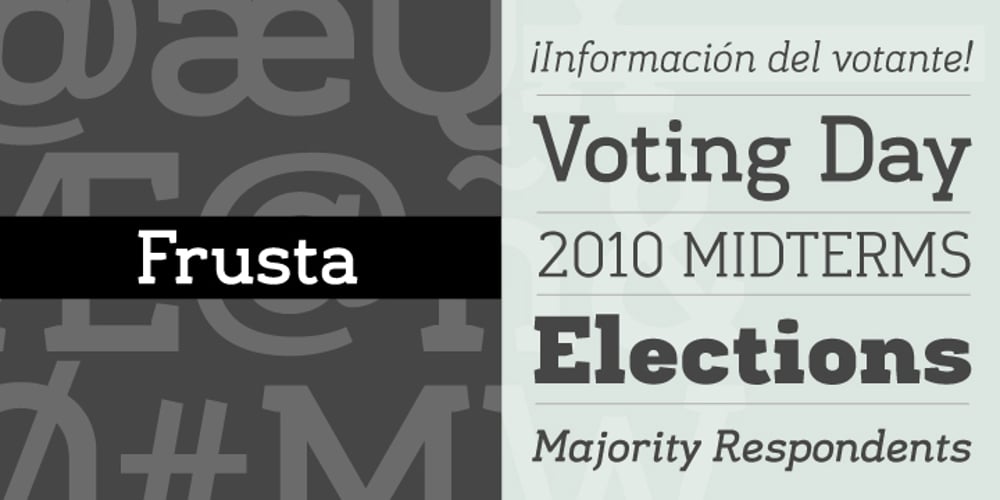
Frusta Font Family was designed by Galen Lawson and published by District. Frusta contains 5 styles and family package options. Frusta is an earnest family of slab-serifs softened by tapered serifs and slightly squared curves that give it a warmth often absent in other slabs. Monoline and with a geometric foundation, this three-weight family includes true italics that can be their own headline face. The airy, yet sturdy construction makes this perfect for small text, infographics, and headlines of all sizes.